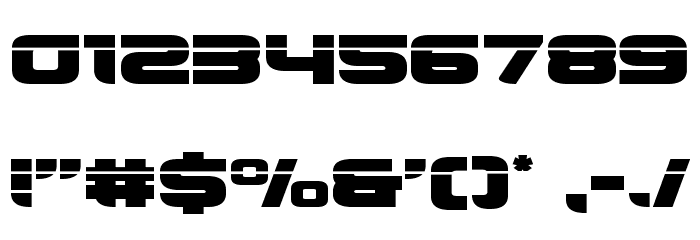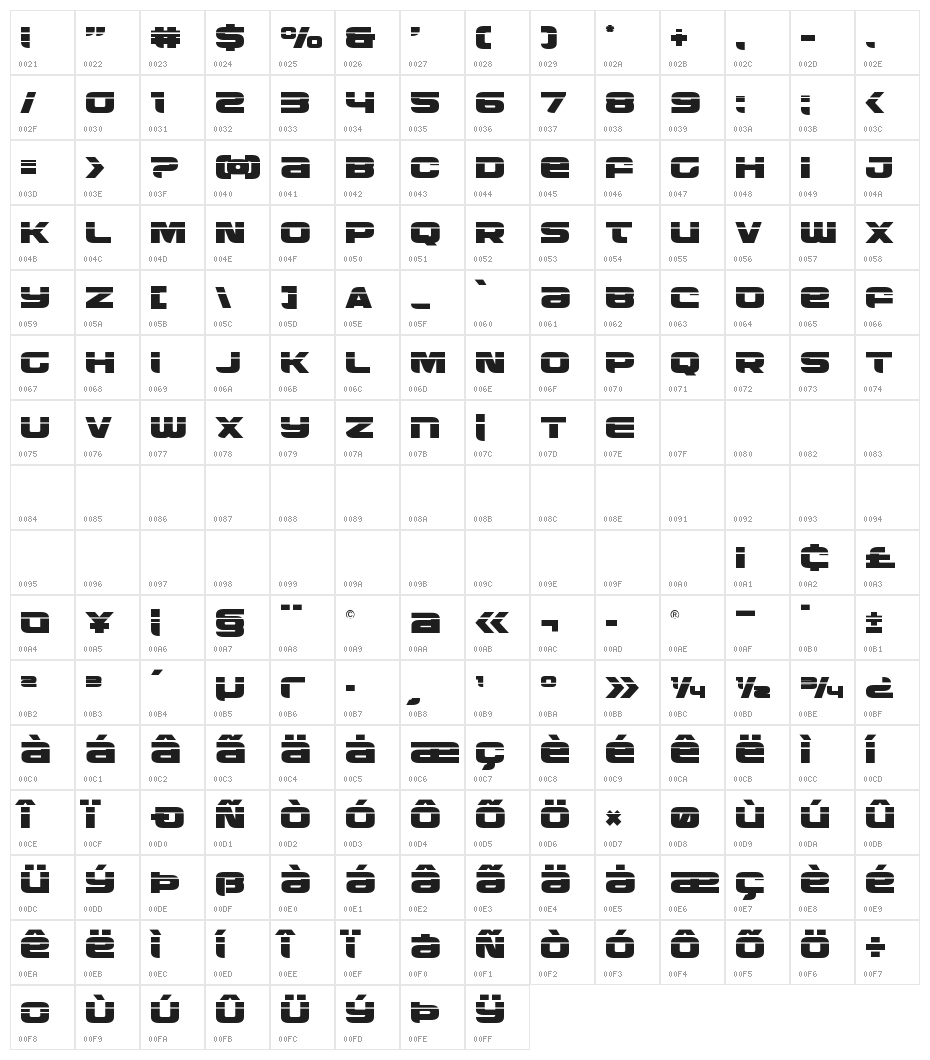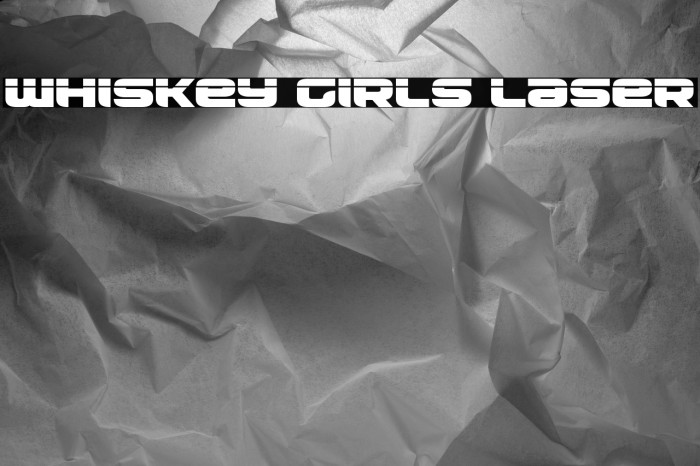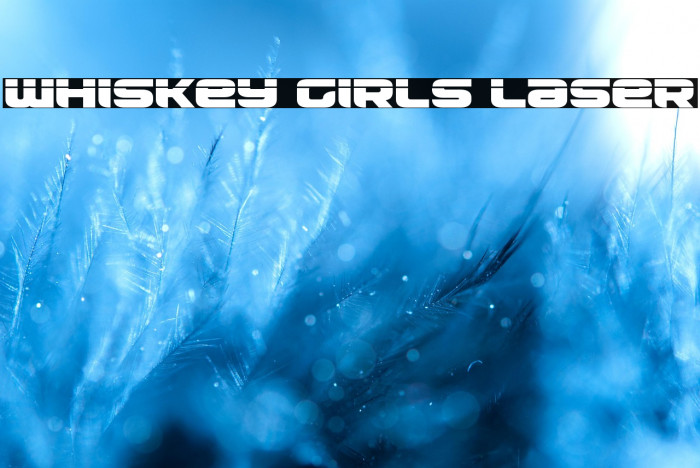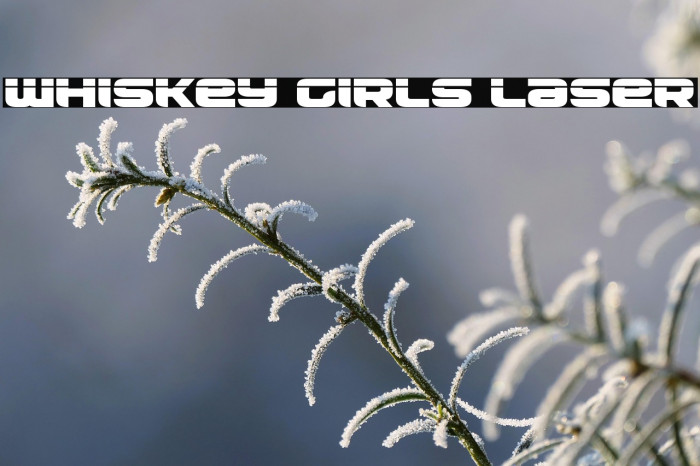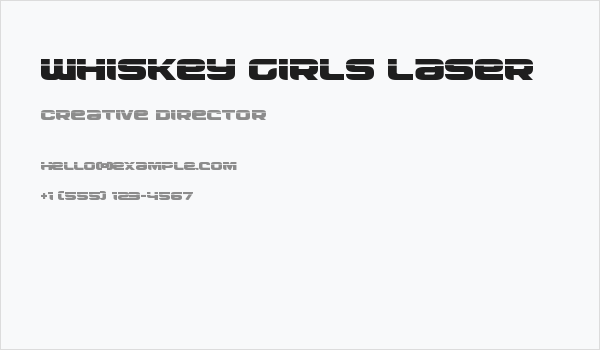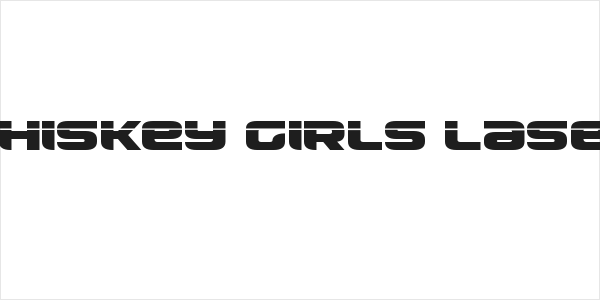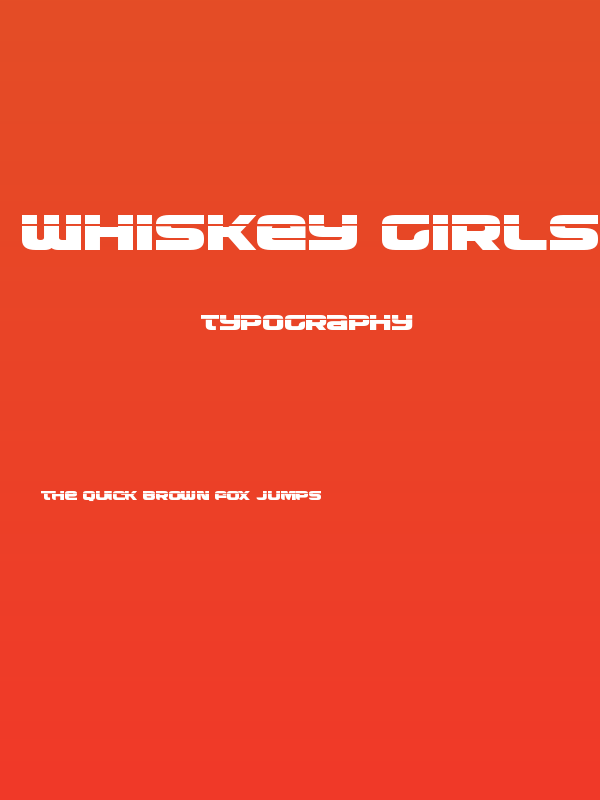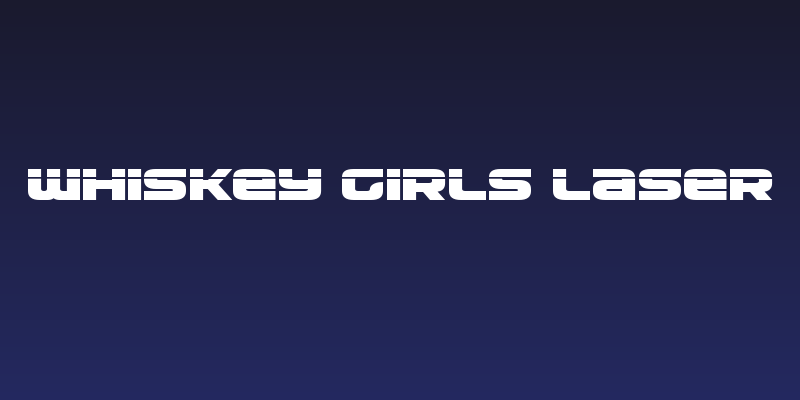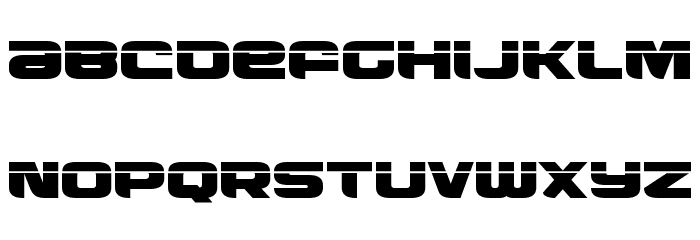
Whiskey Girls Laser Font
Whiskey Girls Laser Description
This font features a bold, futuristic design with a strong geometric influence. The characters are constructed with thick, uniform strokes and have a distinct, blocky appearance. The font maintains a consistent width across all characters, giving it a monospaced feel, although it is not strictly monospaced. The uppercase and lowercase letters are similar in style, with the lowercase being slightly smaller. The numbers and special characters follow the same design principles, ensuring a cohesive look. The font's unique style makes it suitable for projects that require a modern, tech-inspired aesthetic.